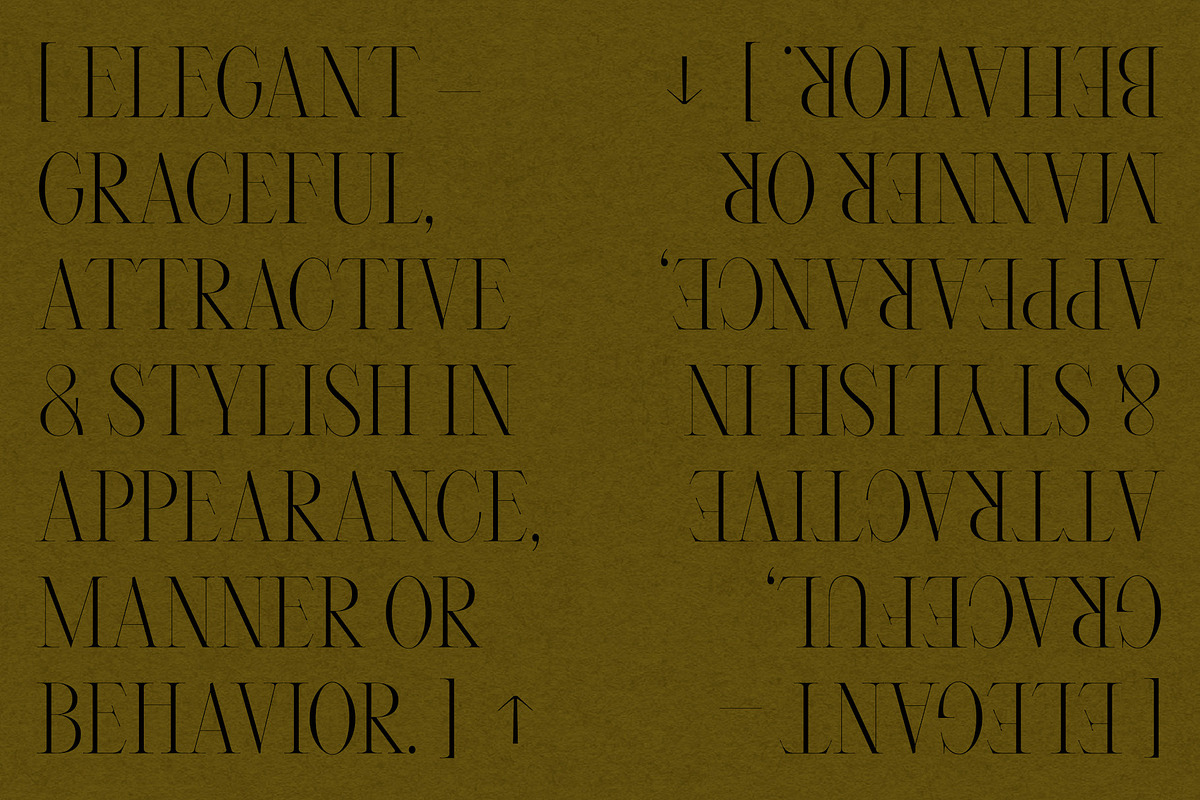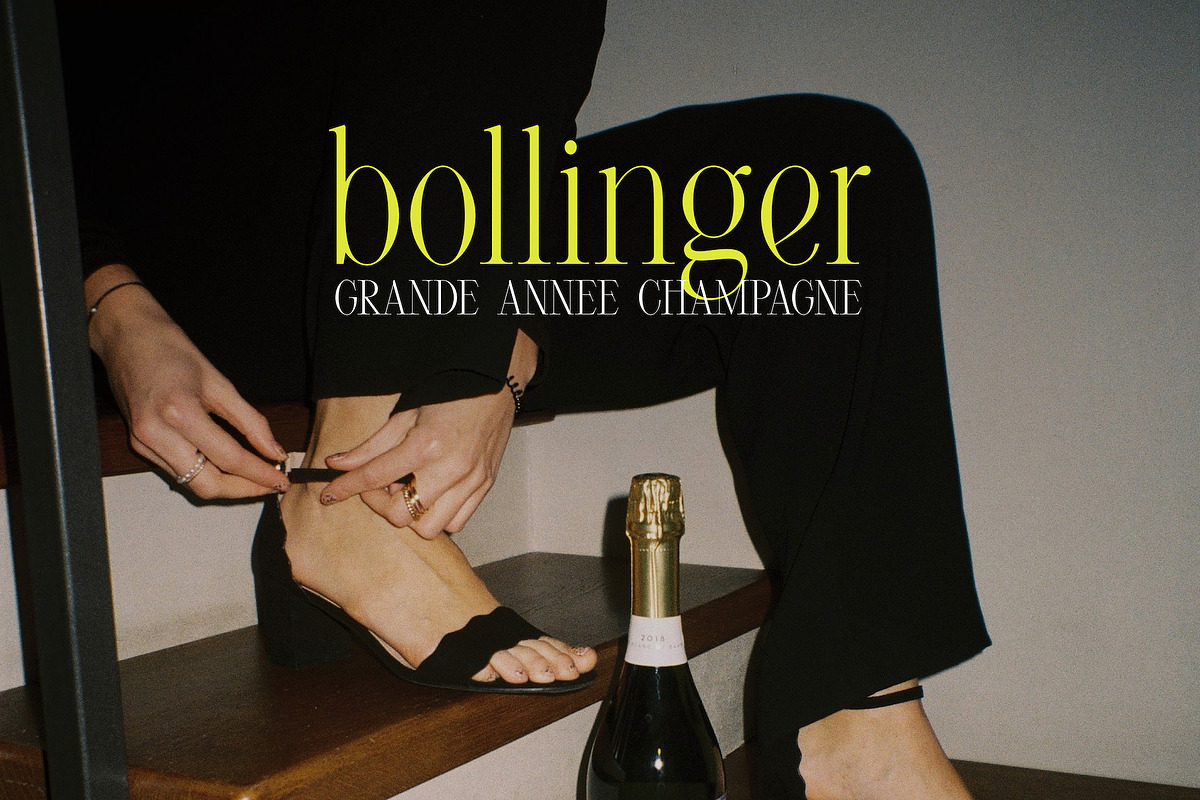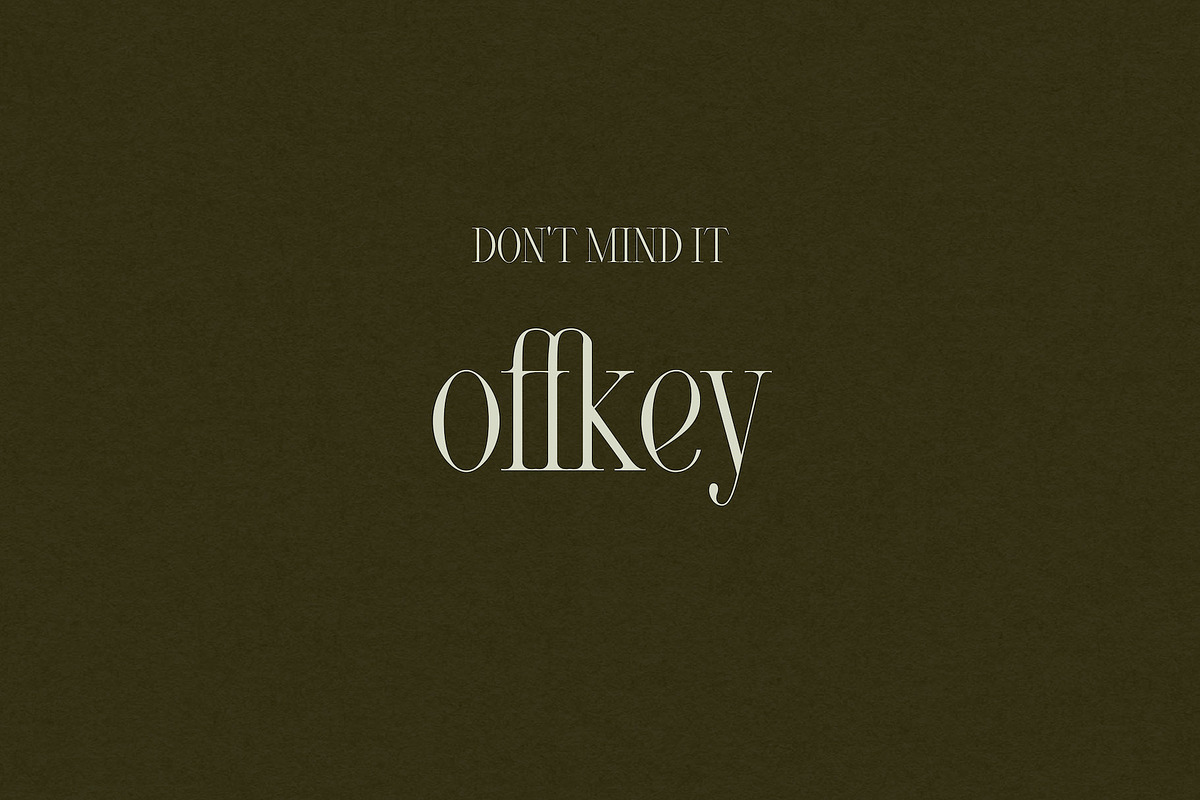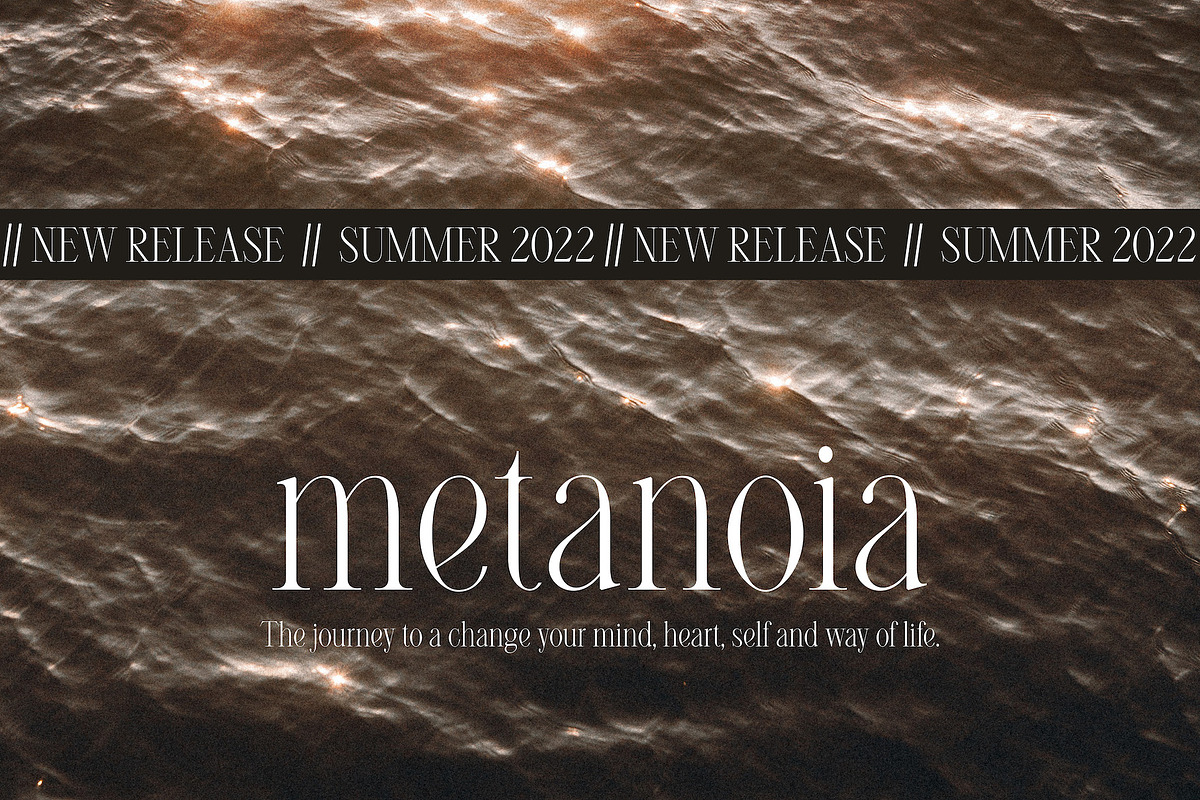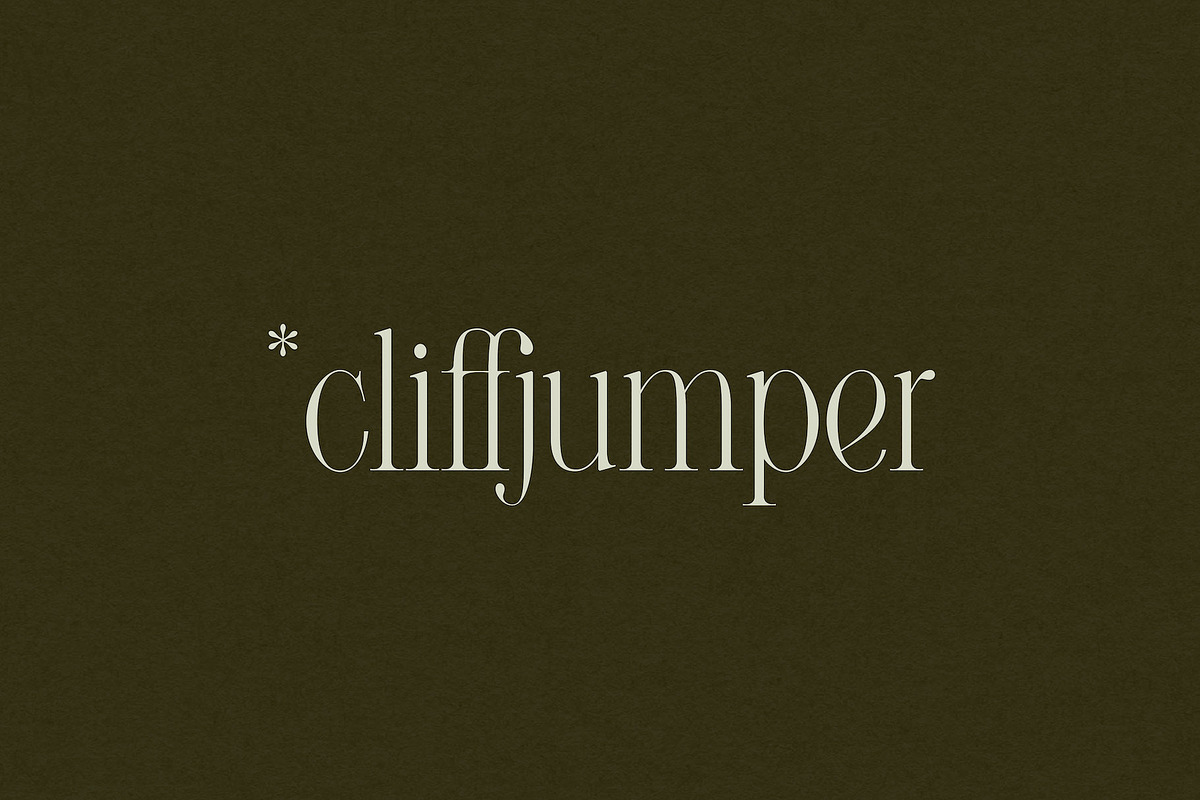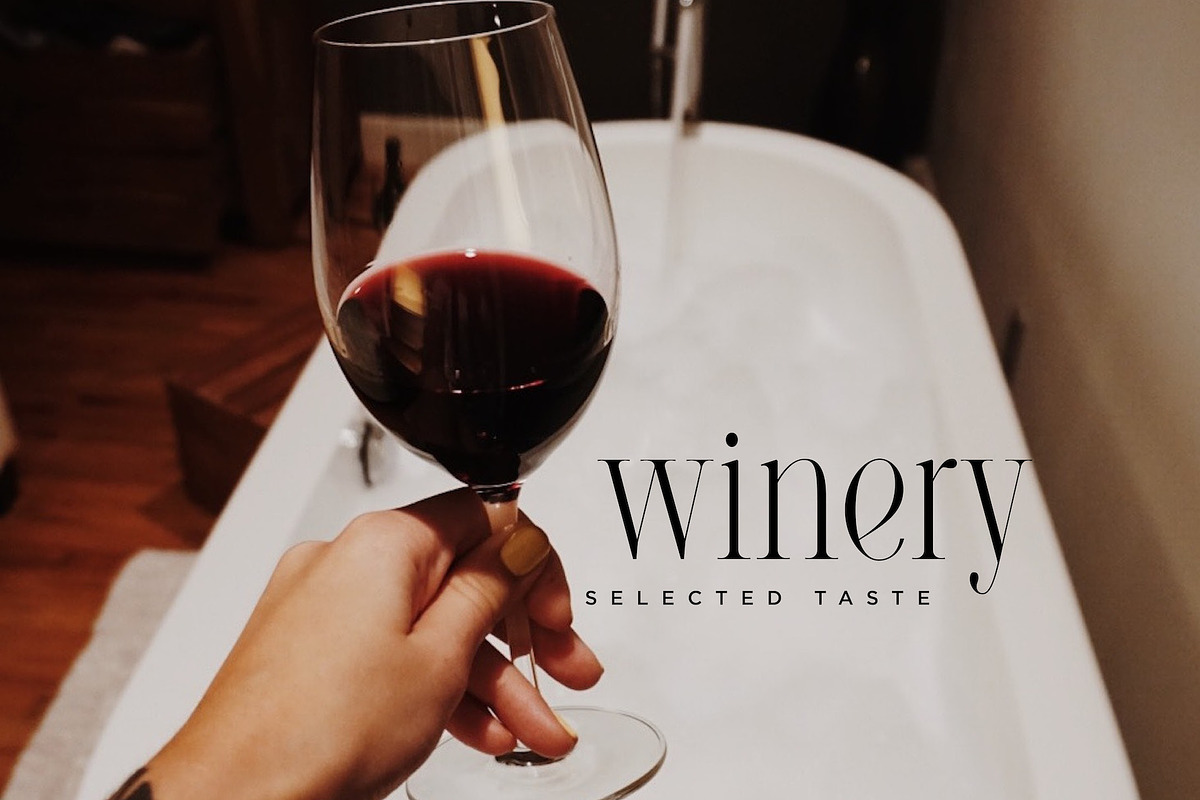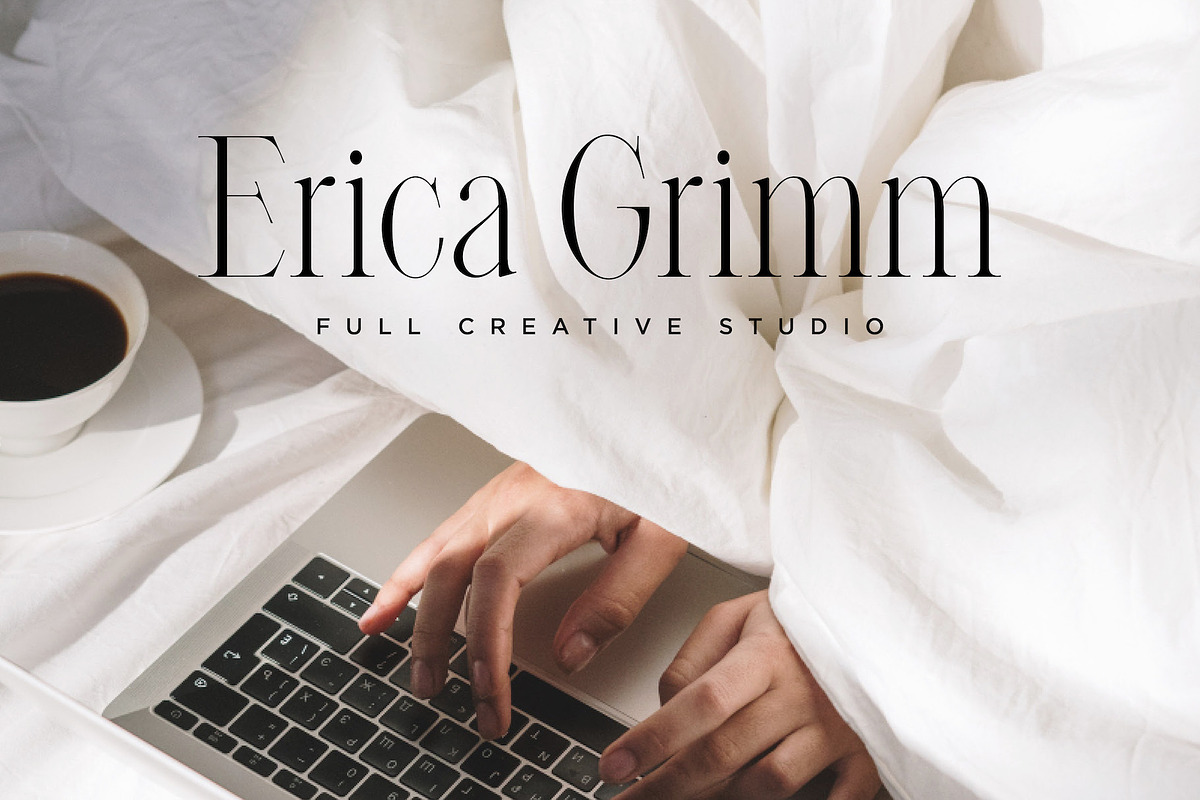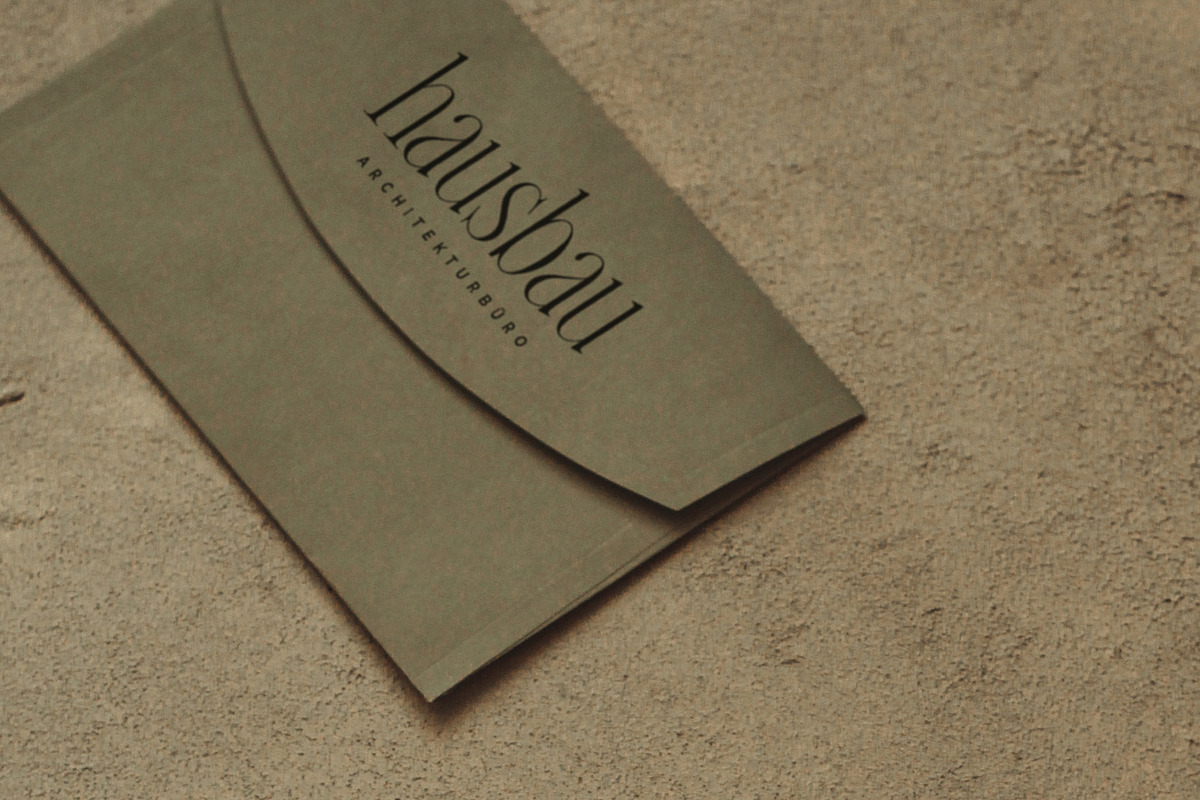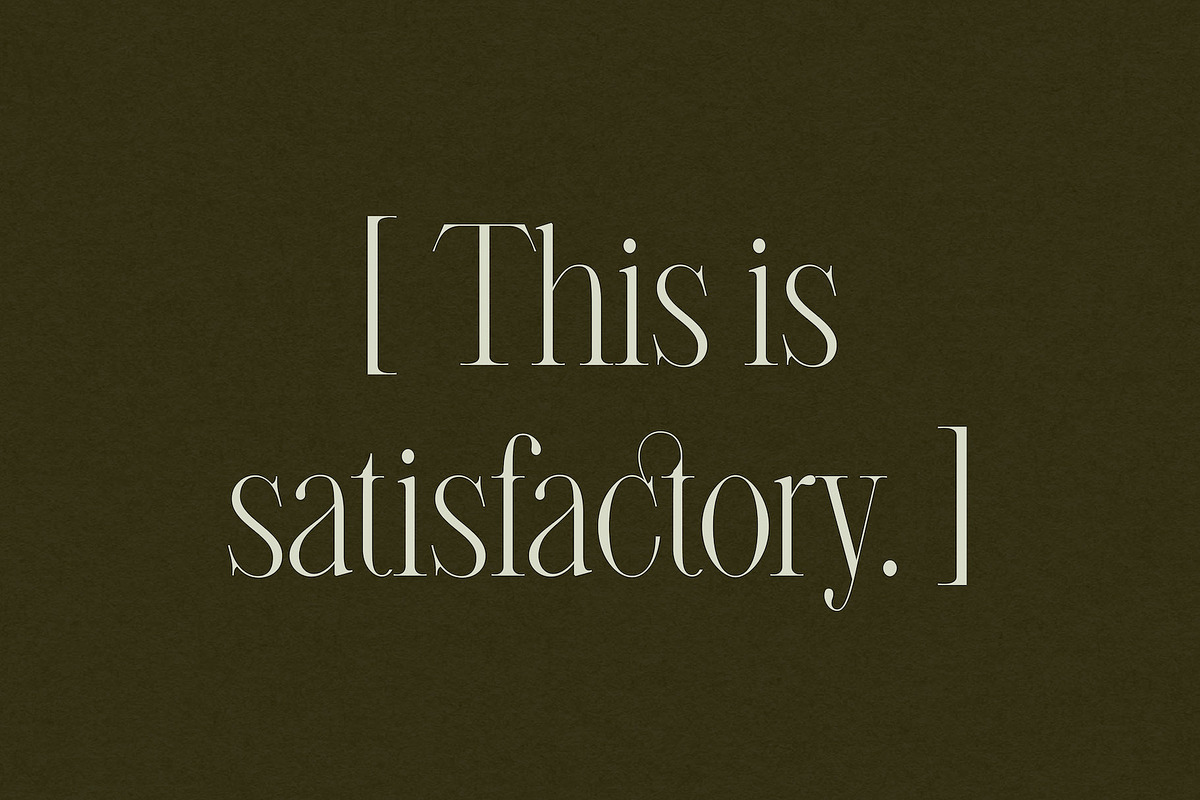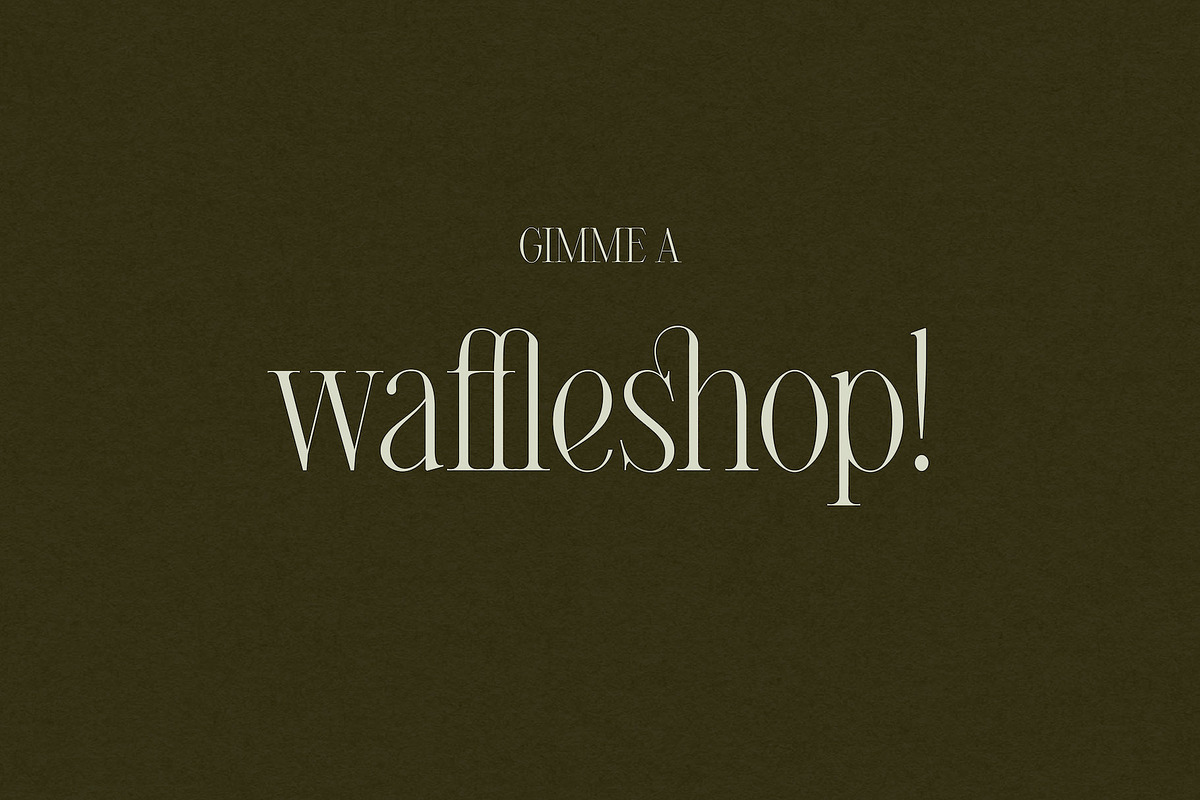
Mikosch – Tasteful & Chic Serif
Mikosch is a tasteful, understated and timeless serif typeface with beautiful curves and confident straight lines. This font is perfectly suited for creating designs that feel elevated and bespoke – and it can be used across print and digital media, for branding, packaging, websites and much more.
The high contrast, smooth curves and carefully designed details create a beautiful, sophisticated flow within this font.
- Numbers + Punctuation
- Non-English support
- Standard Ligatures (all ligatures and special characters can be accessed via the glyphs panel)